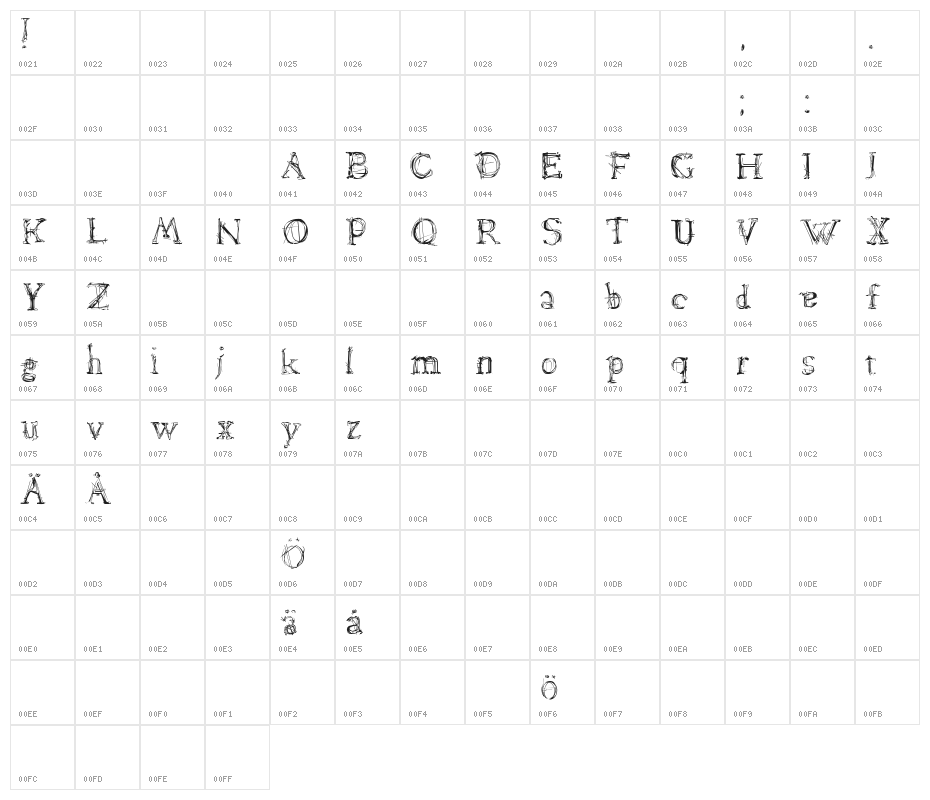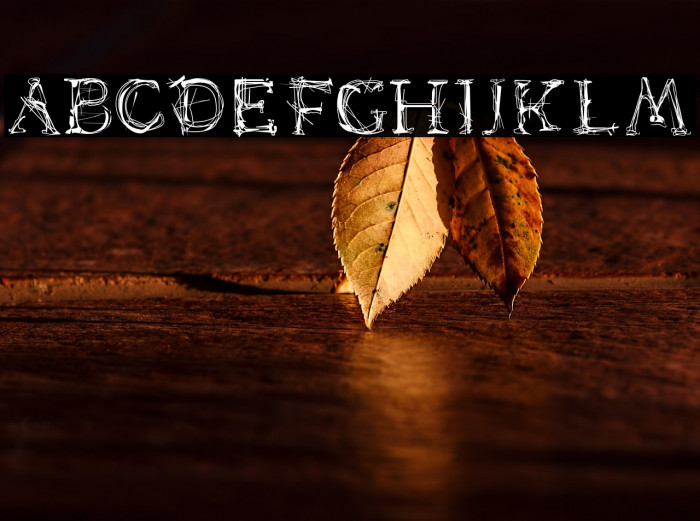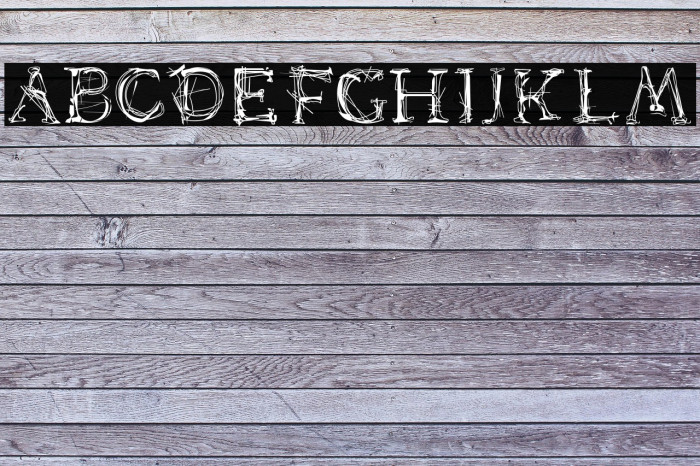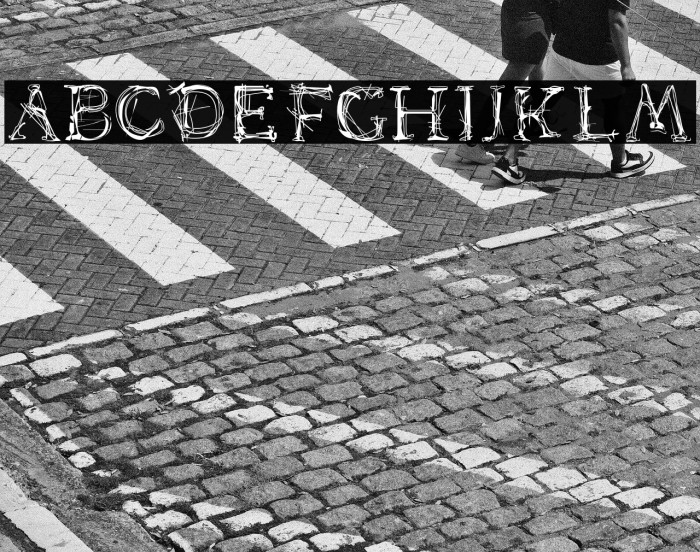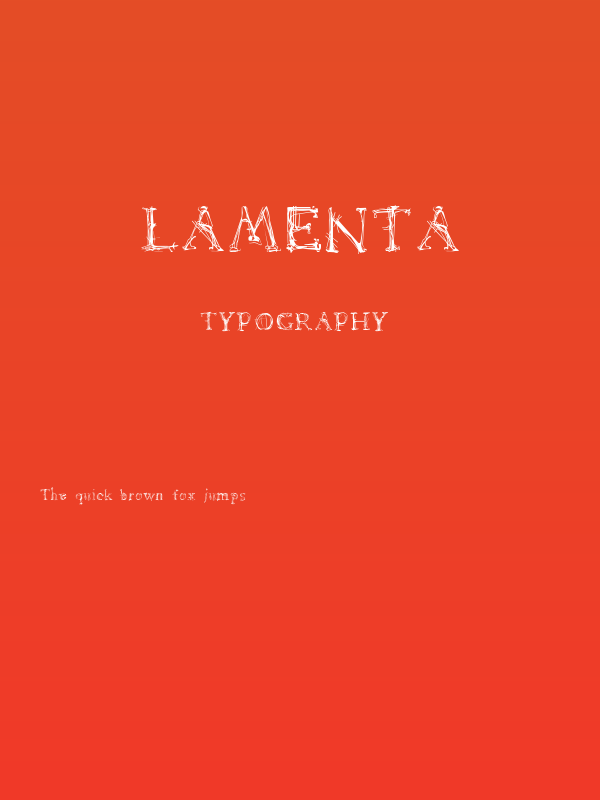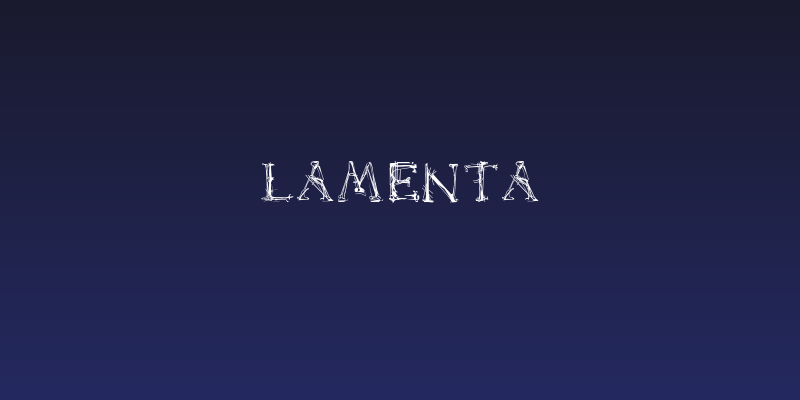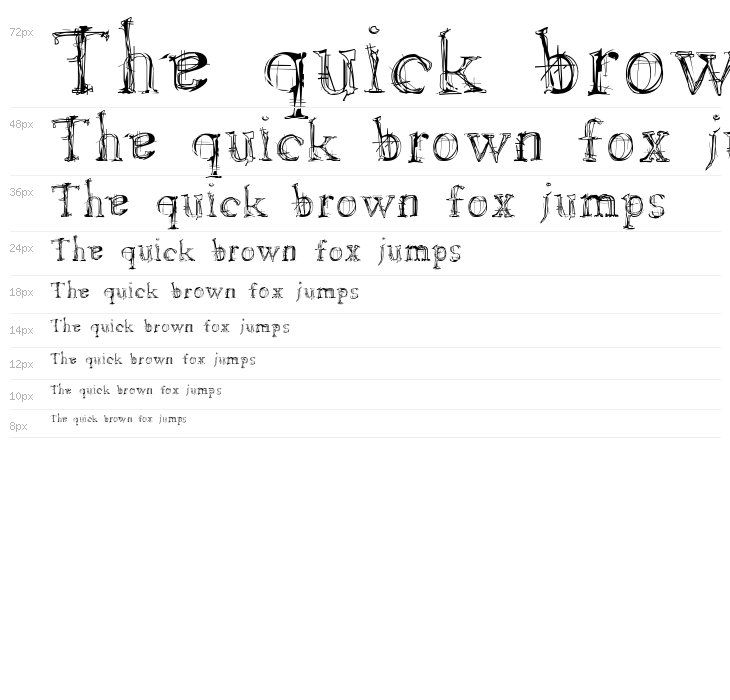
Lamenta Font
Lamenta Description
This font features a highly decorative and intricate design, characterized by its chaotic and sketch-like appearance. Each letter is composed of multiple overlapping strokes, giving it a hand-drawn and distressed look. The font maintains a consistent structure across both uppercase and lowercase letters, while incorporating unique variations that enhance its artistic flair. The overall effect is one of dynamic movement and energy, making it stand out as a bold and expressive choice. Its unconventional style is perfect for projects that require a touch of creativity and individuality.
| Proposed Projects | Ideal for album covers, posters, artistic projects, and any design requiring a unique and expressive typeface. |